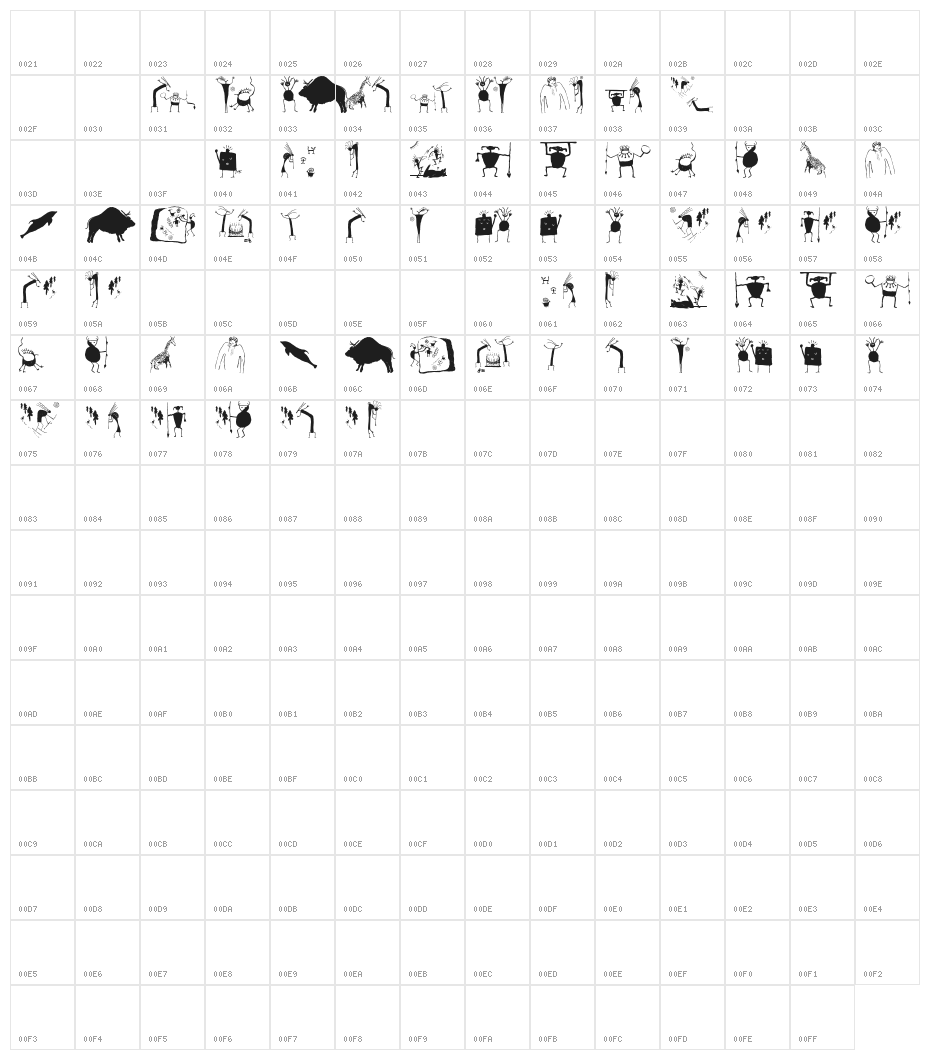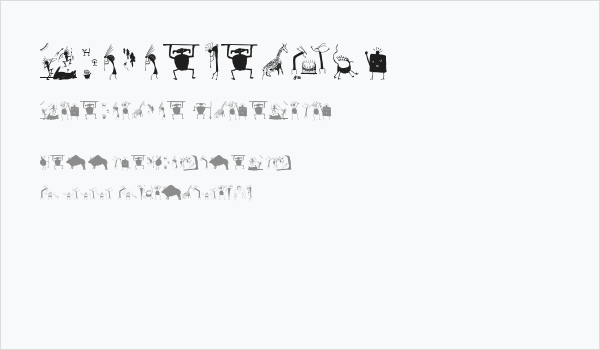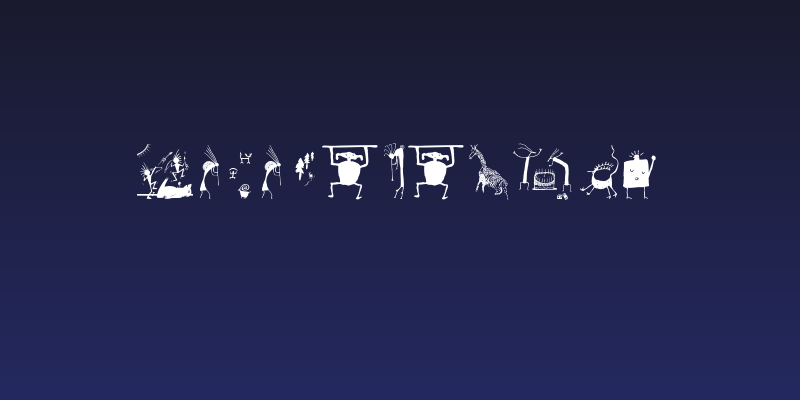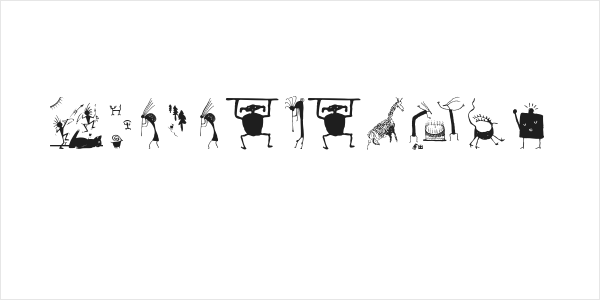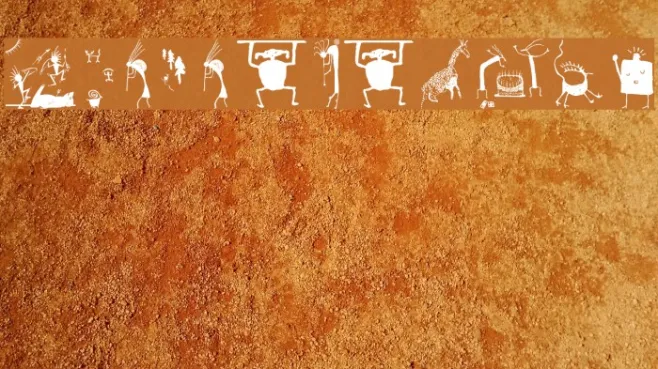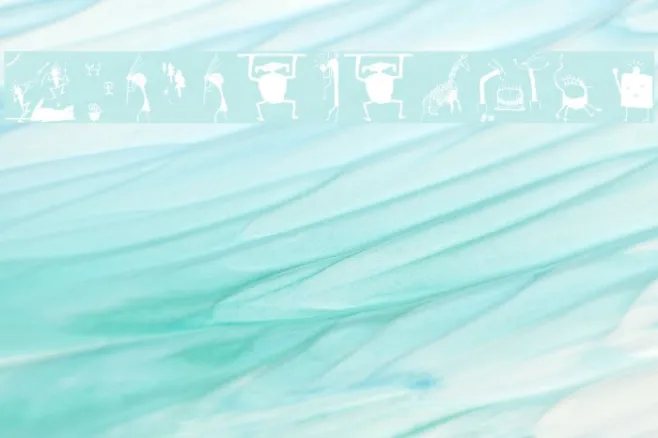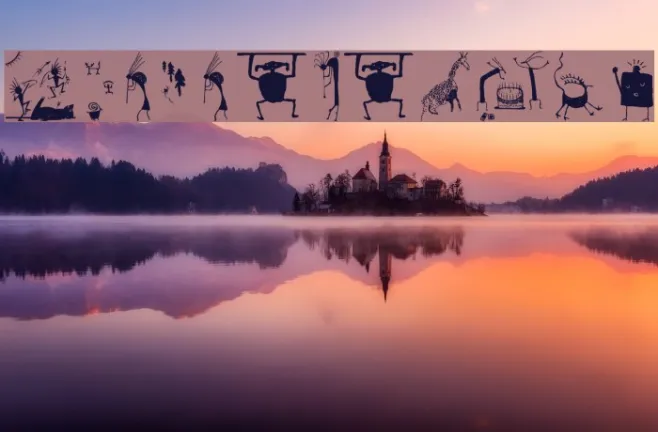
CaveBeings Font
CaveBeings Description
A highly decorative and illustrative font inspired by prehistoric cave paintings, featuring hand-drawn human and animal figures as letterforms. Each character is unique, mimicking ancient rock art with irregular, organic shapes and playful, primitive strokes.
| Overall Style | Decorative, Primitive, Playful |
| Use Case | Logos, Headlines, Posters, Themed Graphics |
| Proposed Projects | Children’s books, educational posters, history museum displays, themed event invitations, creative branding. |